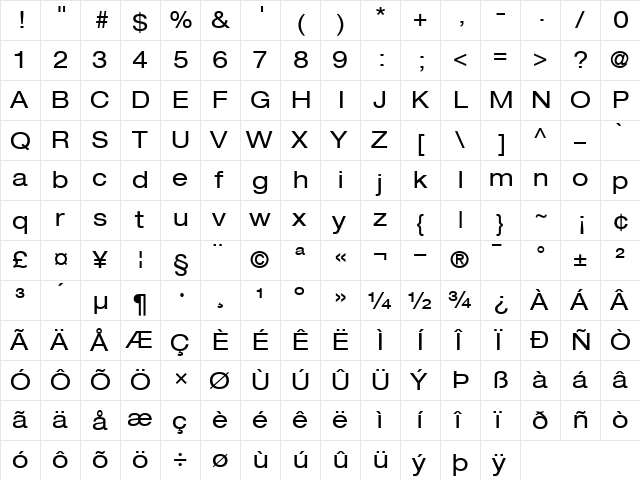
Helvetica53-Extended Roman
Design Context for Helvetica53-Extended Typeface
Helvetica53-Extended is a composed and adaptable typeface that performs quietly and consistently across a wide range of design contexts.